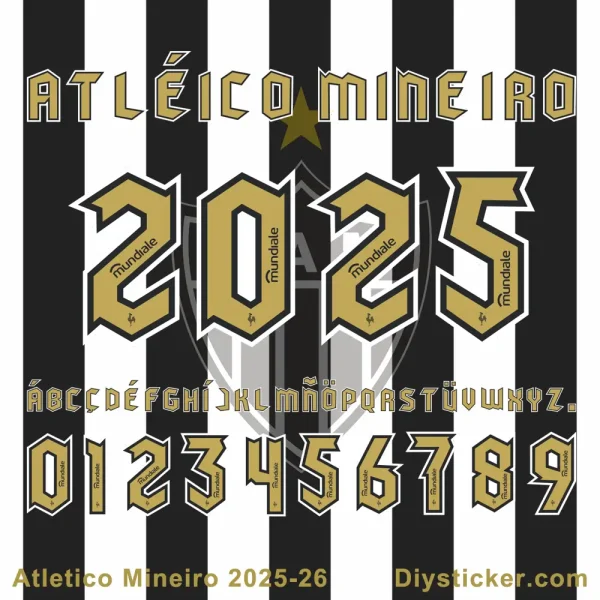
Atletico Mineiro 2025-2026 Font Download
Introducing the official Atletico Mineiro 2025-2026 font – the exact typography used in the club’s matchday jerseys, promotional graphics, and official branding. This complete digital font package is designed for supporters, designers, and content creators who want to bring authentic Galo style to their visuals.